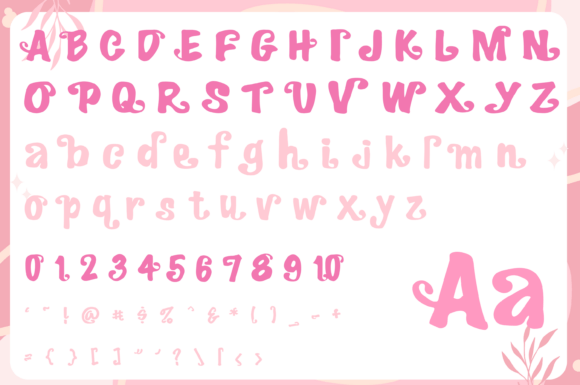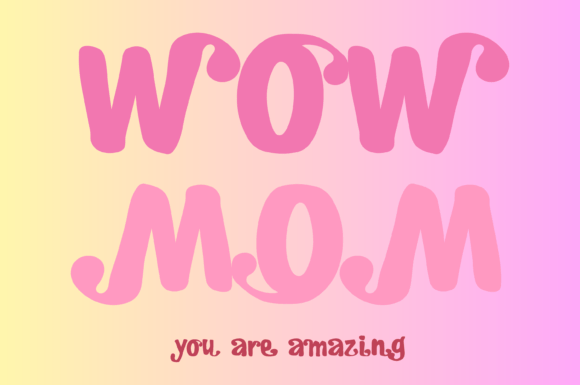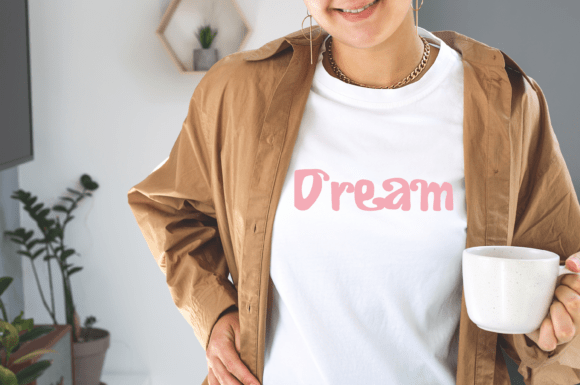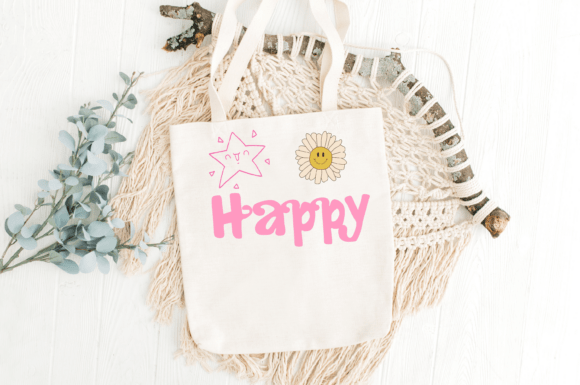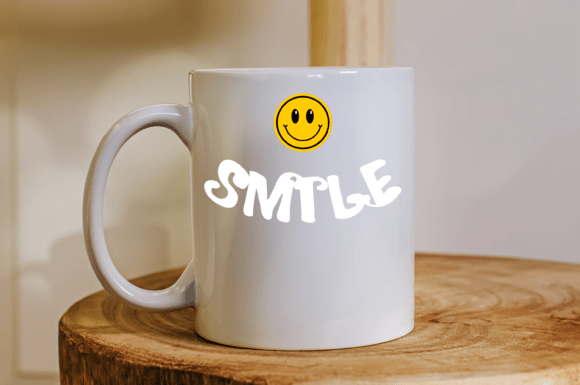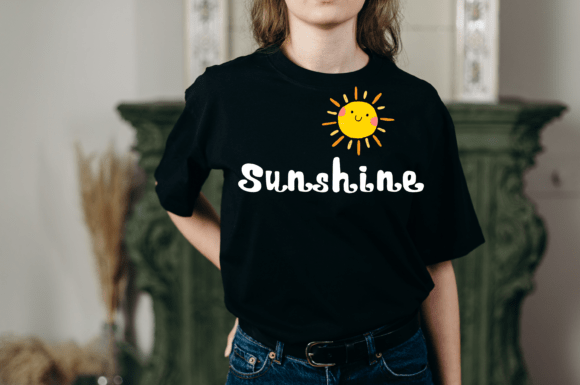
Introducing Curlyjoy Font: The Playful and Cheerful Typeface for Your Designs
Are you looking for a font that can add a touch of happiness and charm to your designs? Look no further than Curlyjoy Font, a playful and bold handwritten typeface that’s perfect for creating joyful and expressive visuals. In this article, we’ll dive into the features and benefits of Curlyjoy Font, and explore how you can use it to elevate your designs.
The Personality of Curlyjoy Font
Curlyjoy Font is a bubbly and whimsical typeface that’s sure to put a smile on your face. Its letterforms feature delightful curls and thick strokes, giving it a fun and childlike personality. This font is perfect for designs that need a cheerful and expressive look, such as kids’ products, party invitations, kawaii-themed branding, cute packaging, or joyful social media graphics.
Key Features of Curlyjoy Font
- Playful and bold: Curlyjoy Font is a confident and eye-catching typeface that’s sure to grab attention.
- Whimsical curls: The font’s curls and swashes add a touch of whimsy and fun to your designs.
- Thick strokes: The font’s thick strokes give it a bold and playful feel.
- Balanced curves: The font’s curves are carefully balanced to create a smooth and harmonious flow.
- Approachable and friendly: Curlyjoy Font has a friendly and approachable personality that’s perfect for designs that need to connect with their audience.
Use Cases for Curlyjoy Font
Curlyjoy Font is a versatile typeface that can be used in a variety of design projects, including:
- Kids’ products: Curlyjoy Font is perfect for designing fun and playful products for kids, such as toys, games, and educational materials.
- Party invitations: Add a touch of whimsy and fun to your party invitations with Curlyjoy Font.
- Kawaii-themed branding: Curlyjoy Font is a great fit for kawaii-themed branding, such as cute and playful logos, packaging, and marketing materials.
- Cute packaging: Use Curlyjoy Font to create adorable and eye-catching packaging for your products.
- Joyful social media graphics: Add a splash of fun and personality to your social media graphics with Curlyjoy Font.
Why Choose Curlyjoy Font?
There are many reasons why Curlyjoy Font is a great choice for your design projects:
- Unique and eye-catching: Curlyjoy Font is a one-of-a-kind typeface that’s sure to grab attention.
- Easy to read: Despite its playful personality, Curlyjoy Font is easy to read and understand.
- Versatile: Curlyjoy Font can be used in a variety of design projects, from kids’ products to social media graphics.
- Fun and playful: Curlyjoy Font is the perfect way to add a touch of fun and personality to your designs.
Tips for Using Curlyjoy Font
Here are a few tips for getting the most out of Curlyjoy Font:
- Use it in large sizes: Curlyjoy Font is perfect for headlines and titles, so be sure to use it in large sizes to maximize its impact.
- Experiment with colors: Curlyjoy Font looks great in a variety of colors, so don’t be afraid to experiment and find the perfect hue for your design.
- Pair it with other fonts: Curlyjoy Font pairs well with a variety of other fonts, so feel free to get creative and find the perfect combination for your design.
Curlyjoy Font is a playful and cheerful typeface that’s perfect for designers and crafters who want to add a touch of happiness and charm to their designs. With its whimsical curls, thick strokes, and balanced curves, Curlyjoy Font is sure to grab attention and put a smile on your face. Whether you’re designing kids’ products, party invitations, or social media graphics, Curlyjoy Font is a great choice for any project that needs a fun and expressive look.